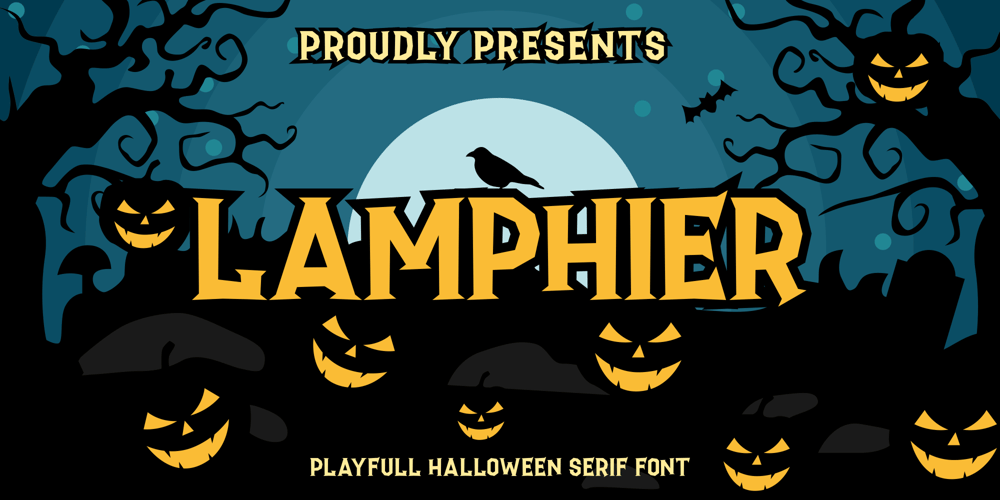
Lamphier
Lamphier font
Lamphier Font Family was designed by Juliawan . and published by Juliawan90. Lamphier contains 1 styles and family package options. Introducing our new product called Lamphier a Spooky Playful Serif Font, Lamphier inspired by Playful style with spooky style typography theme. This font is suitable for book covers, children’s books, comics, posters, packaging, merchandise, logotypes and much more.We highly recommend using a program that supports OpenType features and Glyphs panels like many of Adobe apps and Corel Draw, so you can see and access all Glyph variations.Happy Designing!